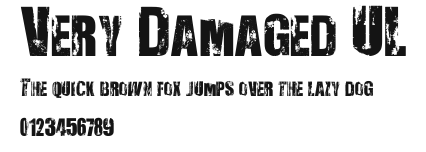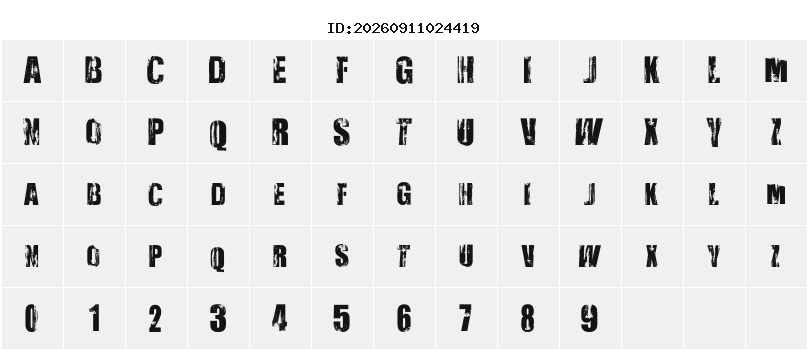
• Font Name: Very Damaged UL
• Designer: Geoffrey Lee
• Description: 1965. Designed for the Stephenson Blake type foundry. A very heavy, narrow, sans serif face intended for use in newspapers, for headlines and in advertisements. Aptly named, this face has a very large "x" height with short ascenders and descenders.